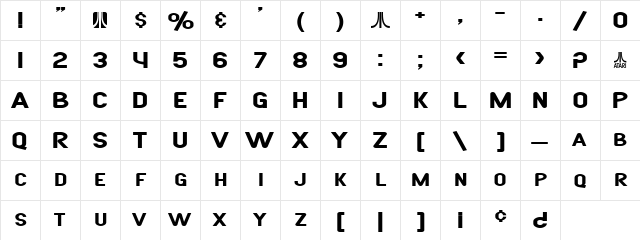
SF Atarian System Extended Bold Free Font
SF Atarian System Extended Bold
Design Context for SF Atarian System Extended
SF Atarian System Extended is a composed and adaptable typeface that performs quietly and consistently across a wide range of design contexts. Its bold stroke weight gives it real presence on the page.